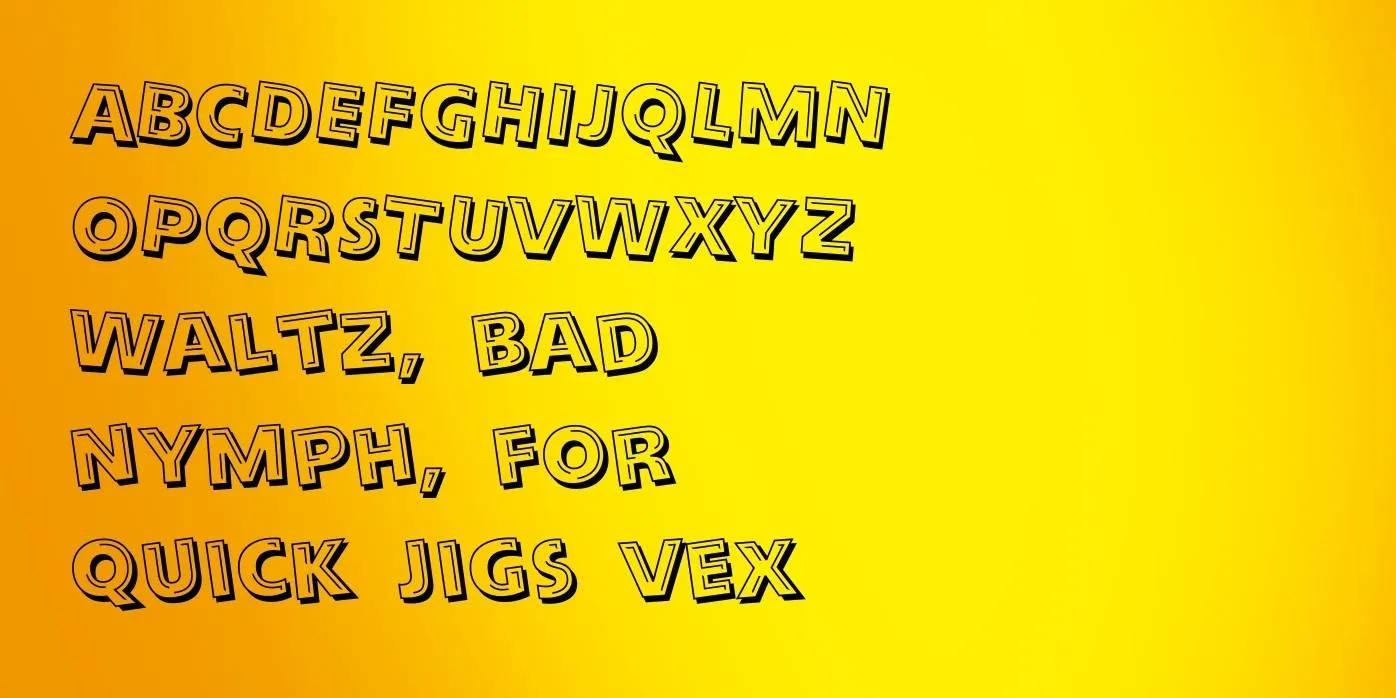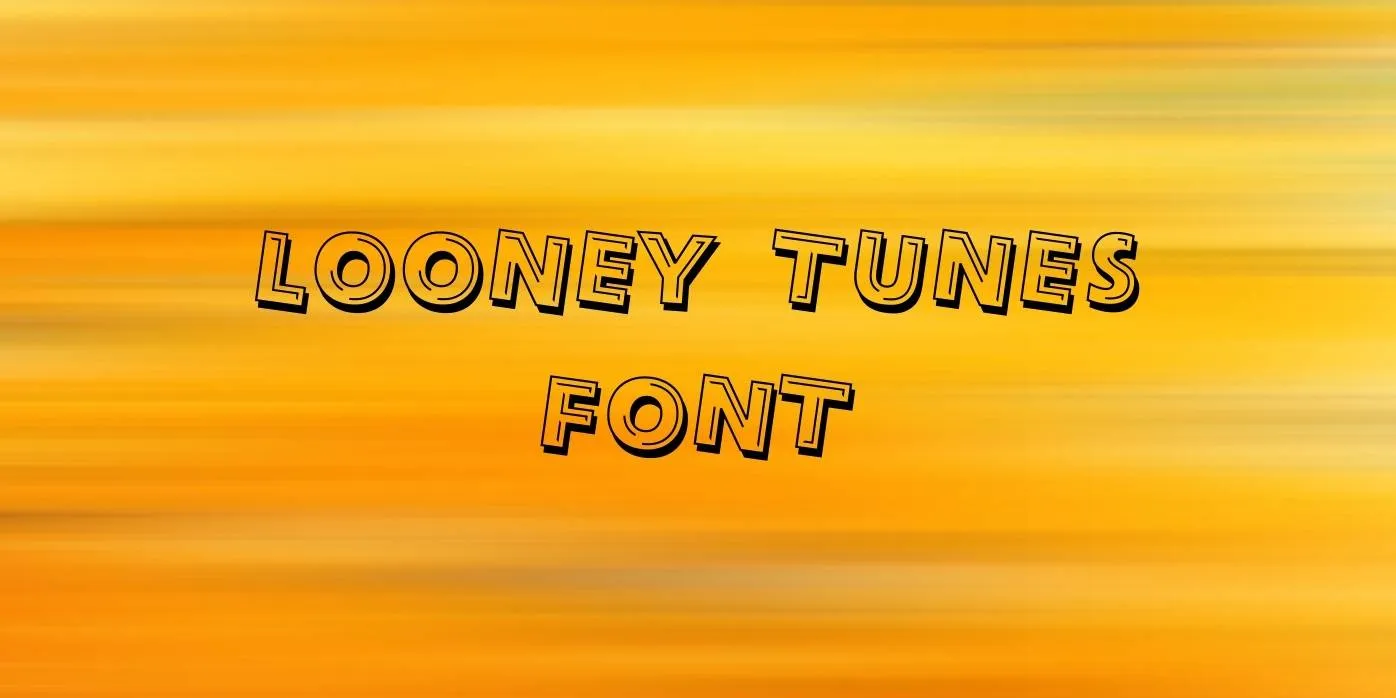
Looney Tunes Font
Looney Tunes font is one of the memorable, famous, and glamorous typefaces. It belongs to a Cartoon fonts family. It has TTF features and is free for personal use only. This typeface is inspired by the famous TV series “Looney Tunes”.
Its TrueType Outlines font has very beautiful cartoon characters consisting of Uppercase and Lowercase, Letters, Numbers and Numerals, and special symbols also. You may also generate this typeface by an online generator tool even without downloading.